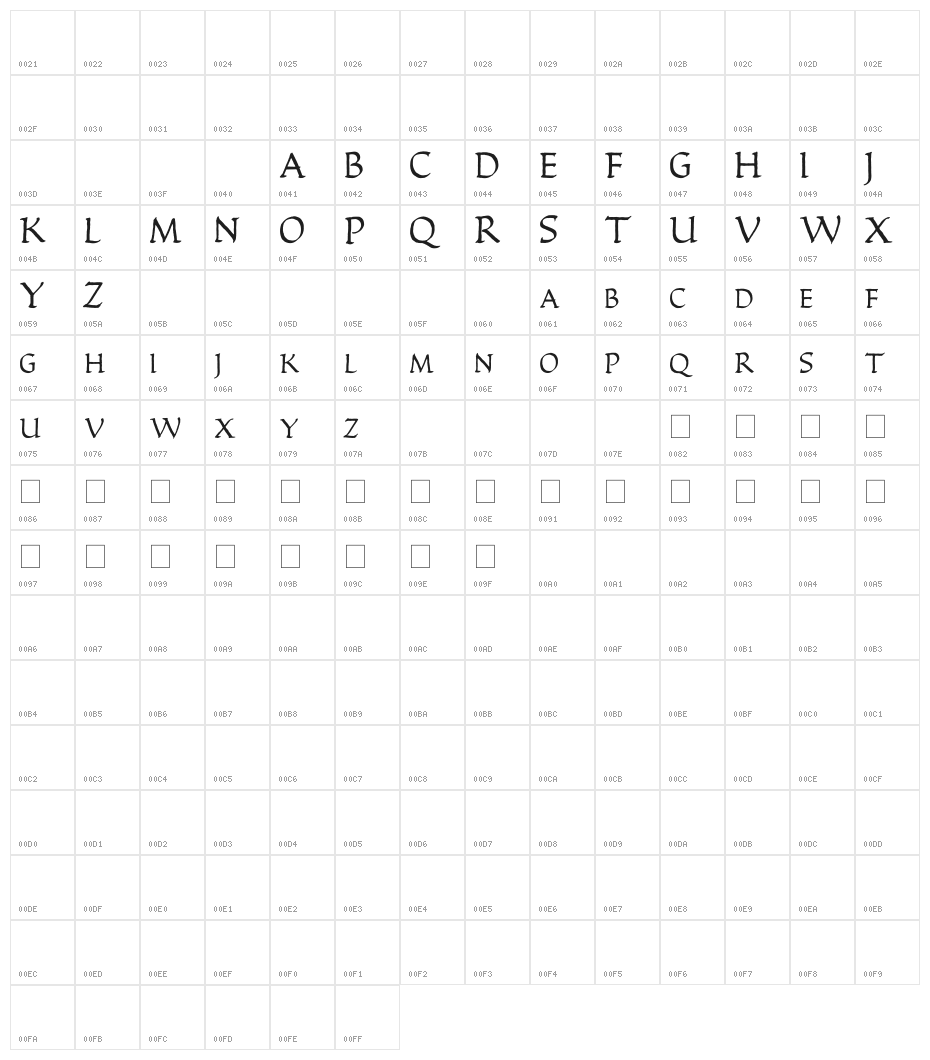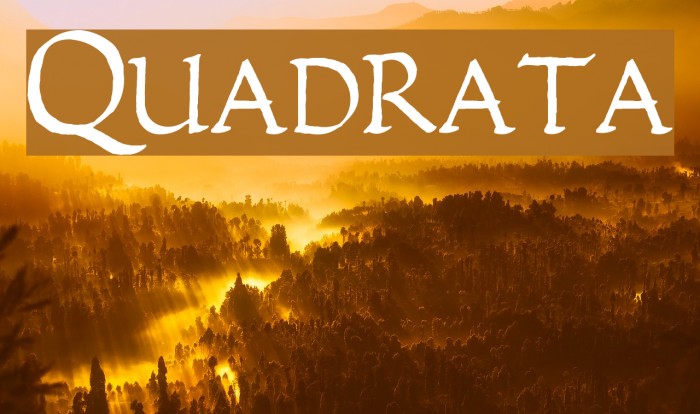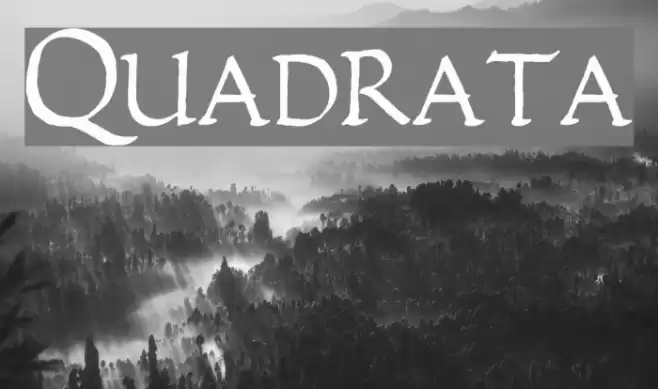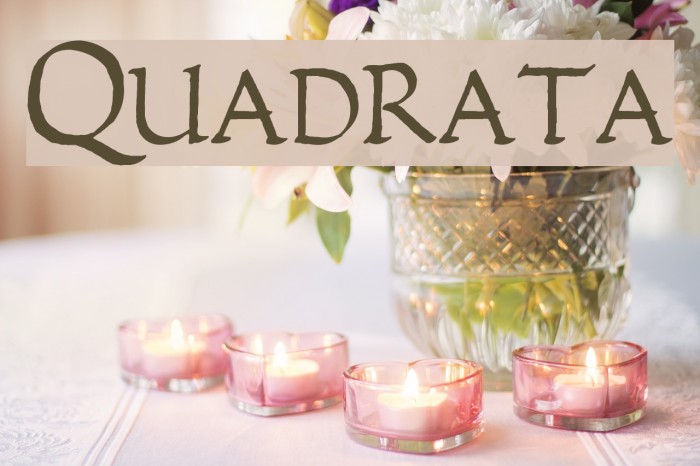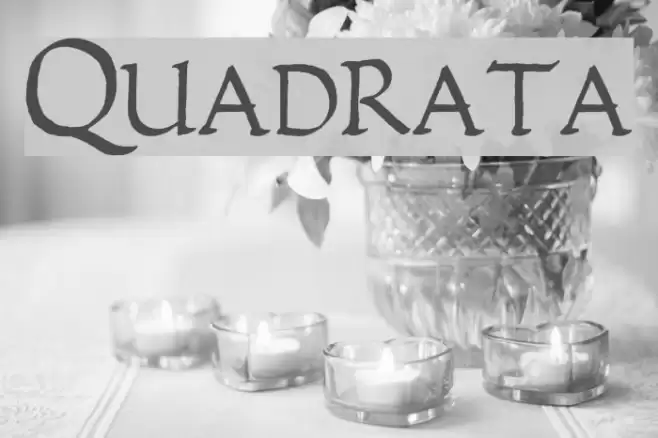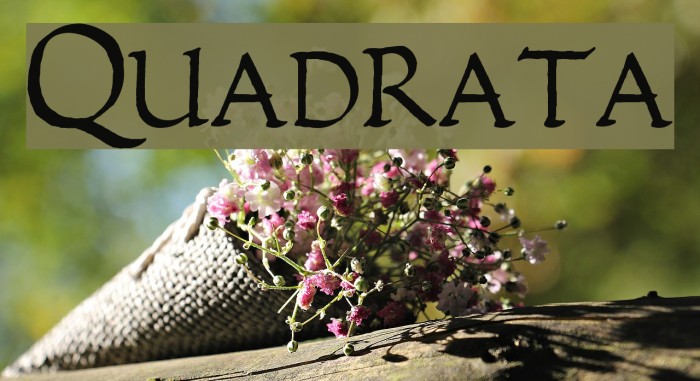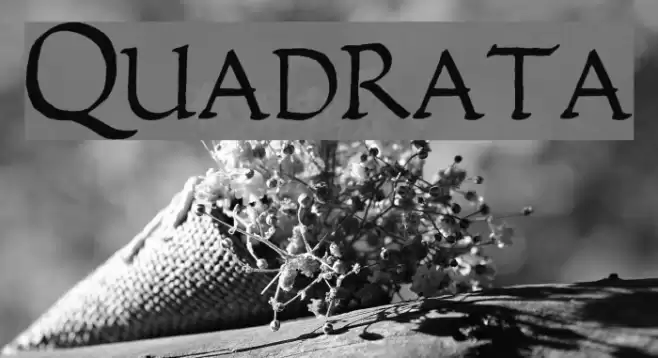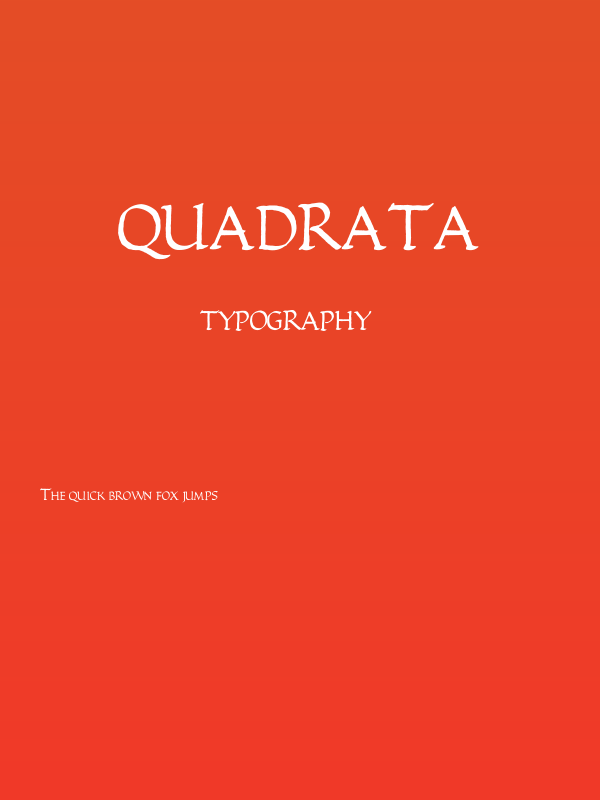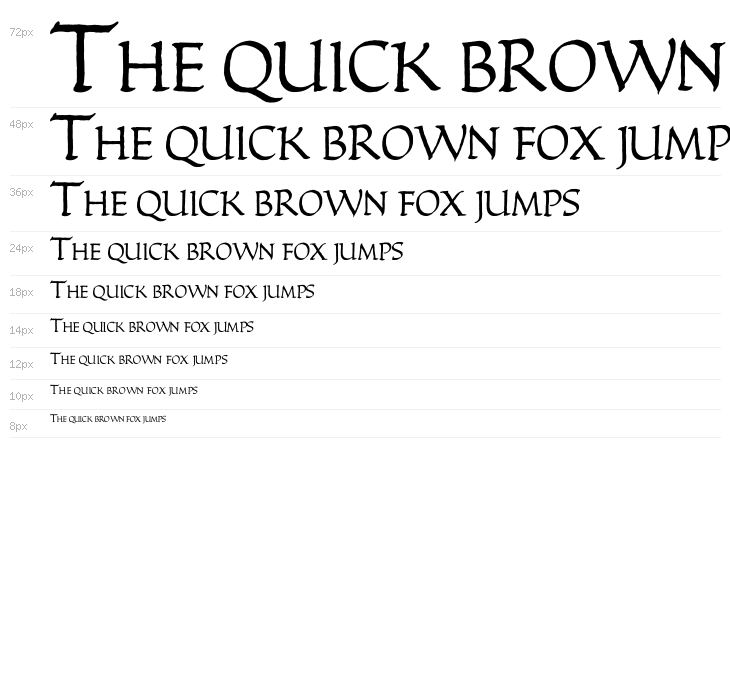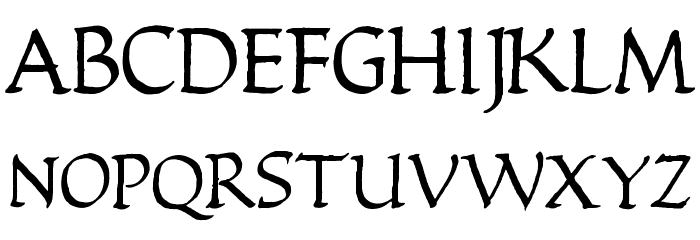
Quadrata Font
Quadrata Description
This font features a distinct medieval style, reminiscent of traditional calligraphy with a modern twist. The characters are bold and slightly condensed, with sharp serifs and a high contrast between thick and thin strokes. The uppercase letters are particularly striking, with a strong presence and a sense of historical elegance. The lowercase letters maintain the same stylistic elements, ensuring consistency throughout the typeface. This font is ideal for projects that require a touch of antiquity and sophistication, such as historical documents, themed event invitations, or branding for luxury products.
| Proposed Projects | Ideal for historical documents, themed invitations, or luxury branding. |